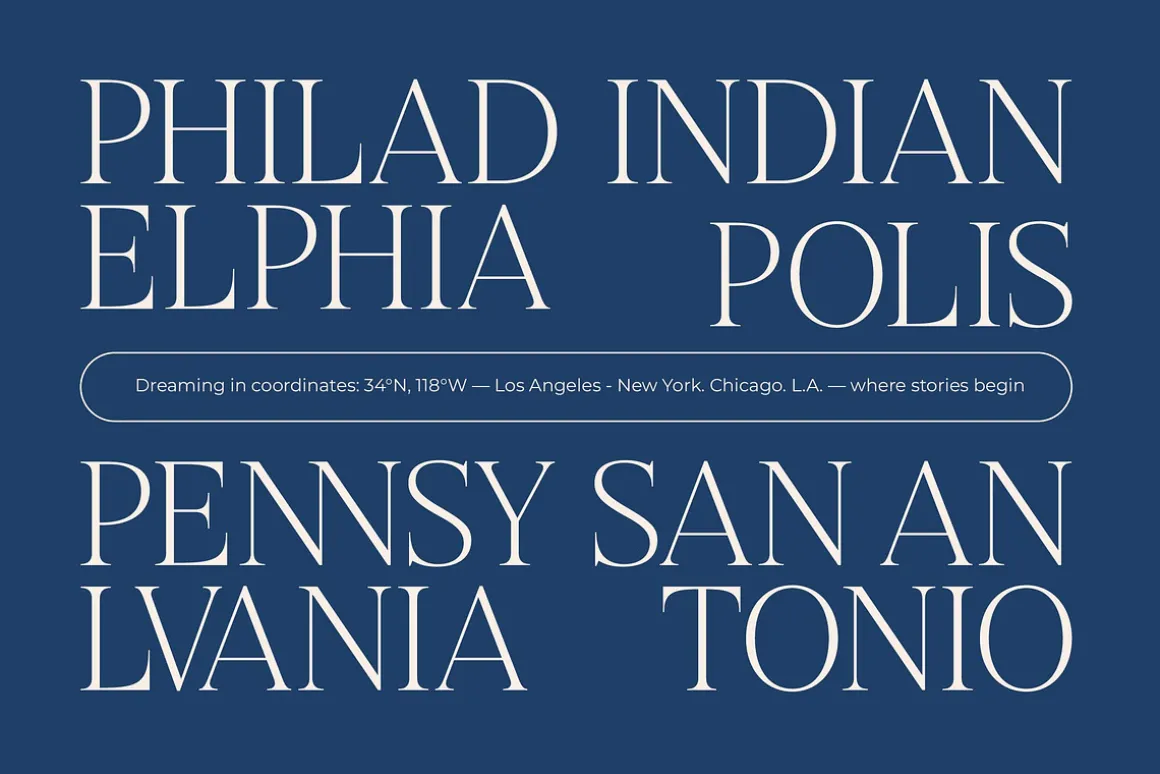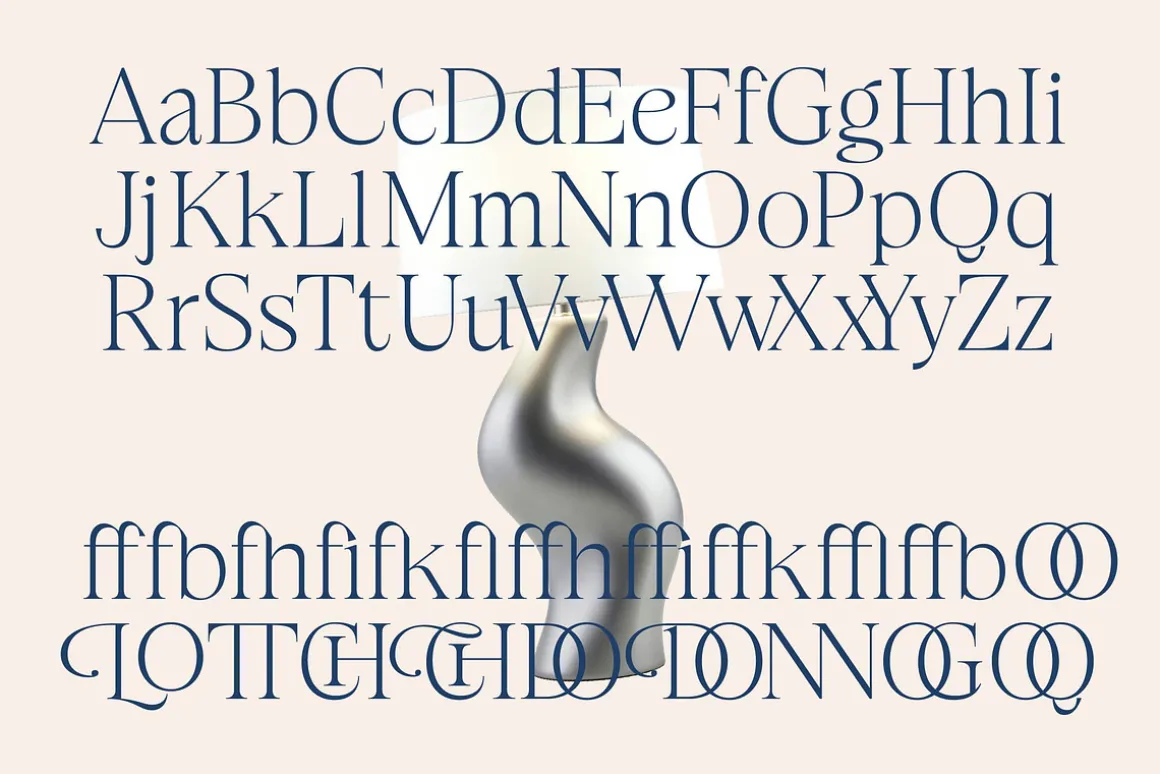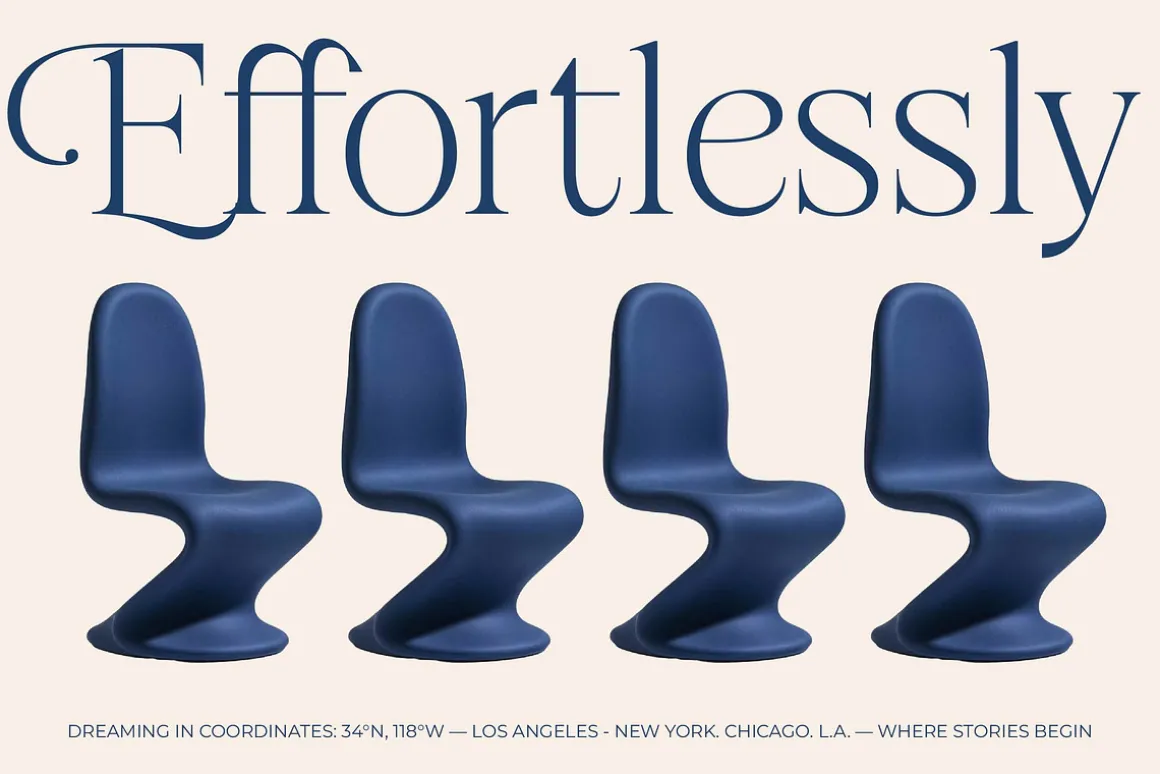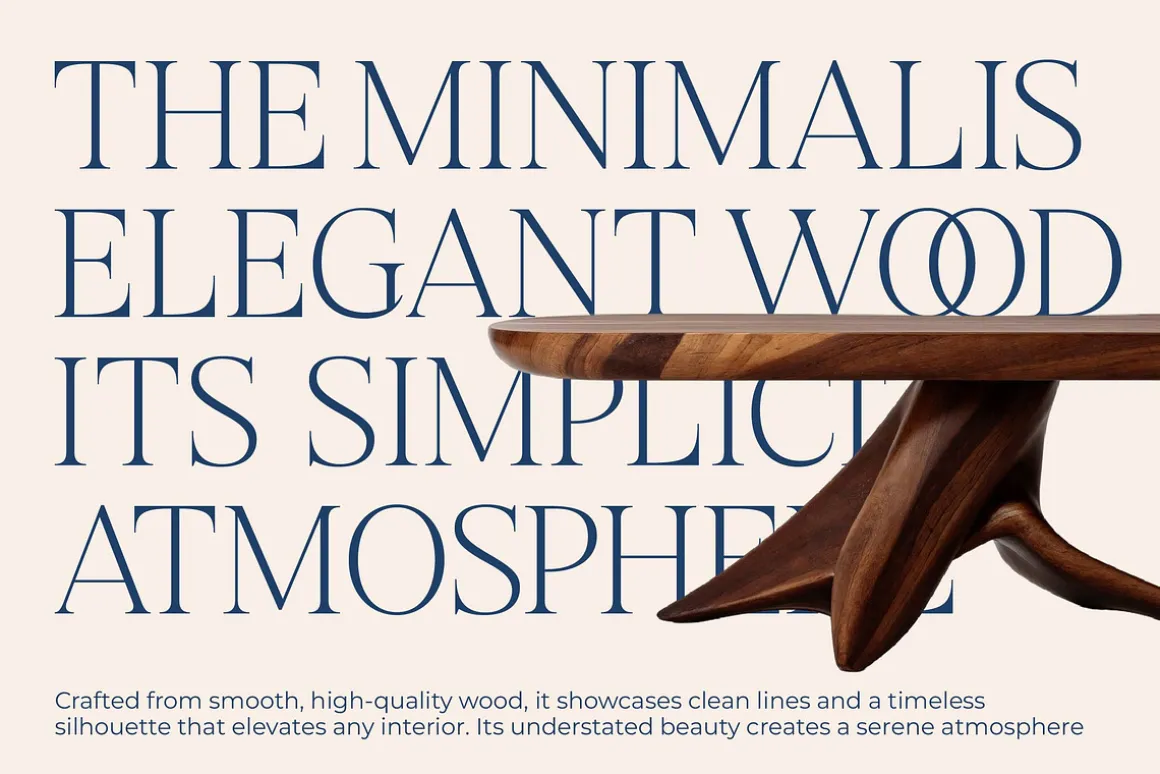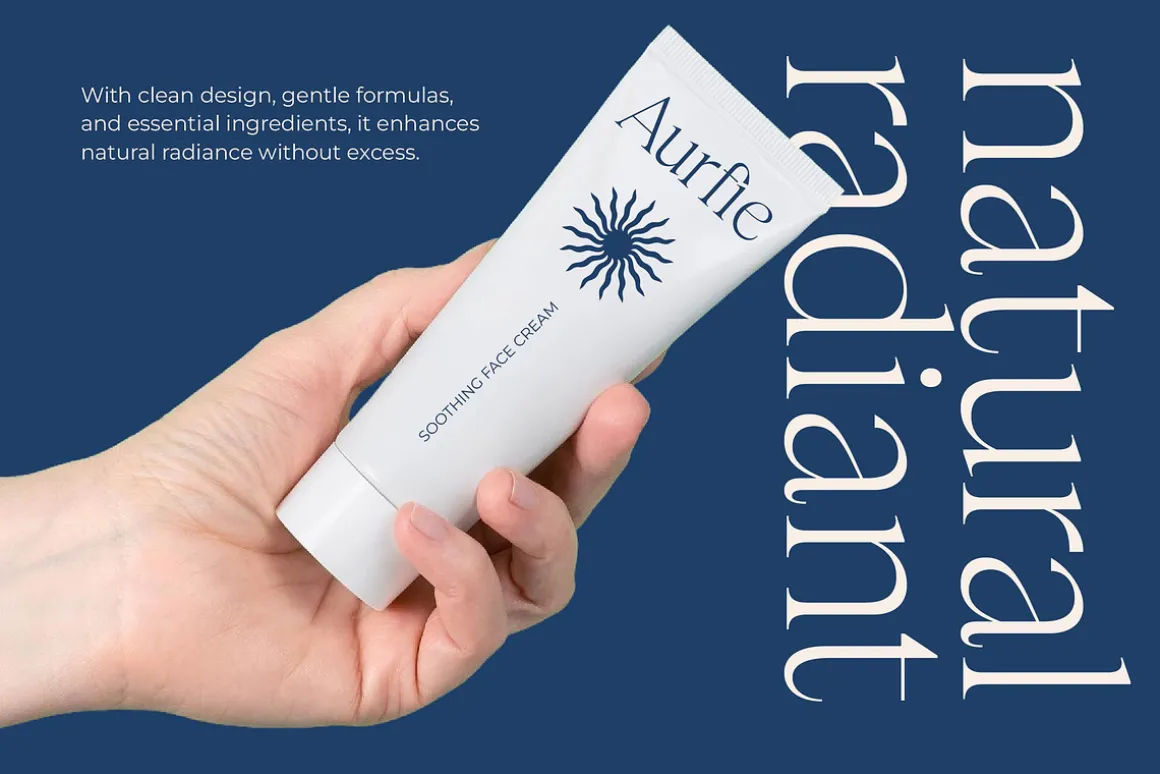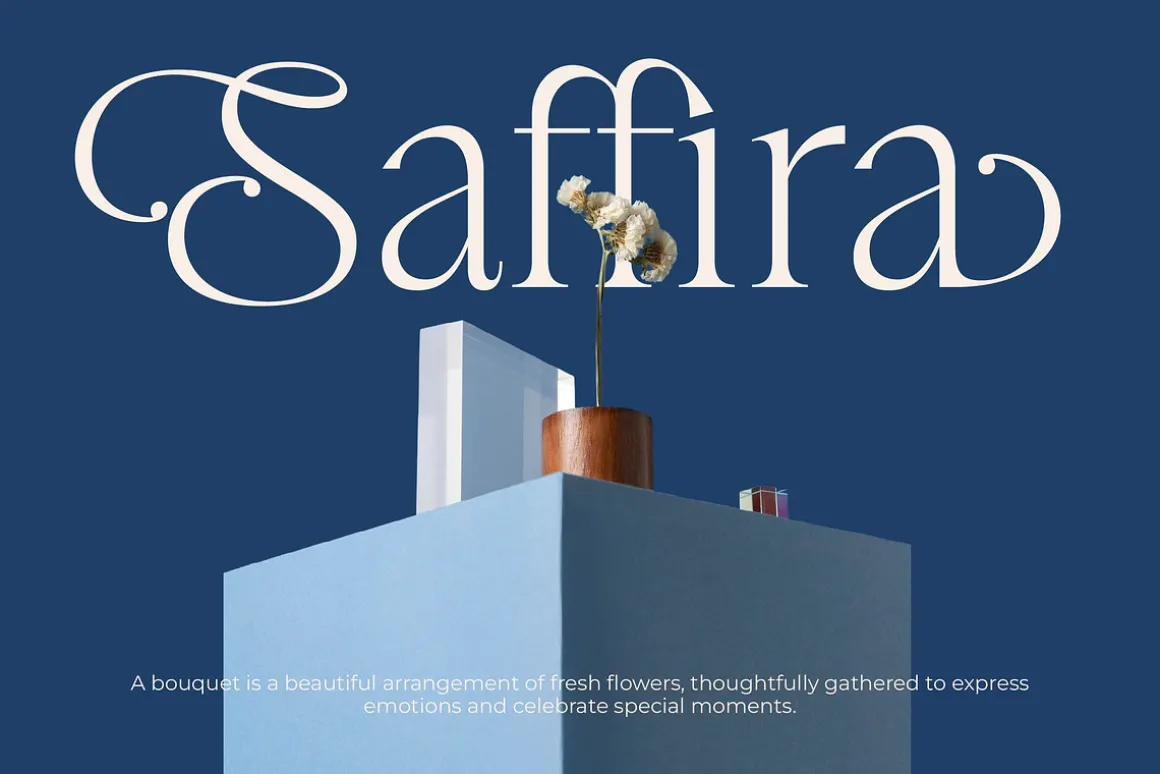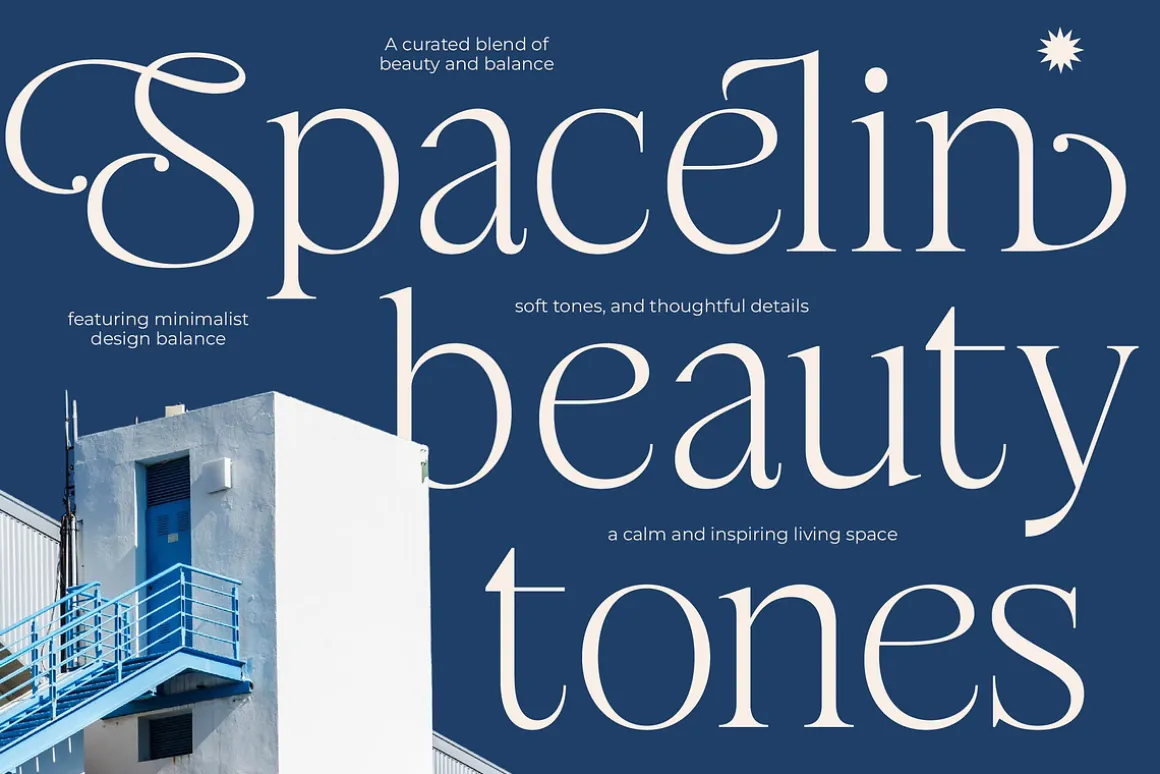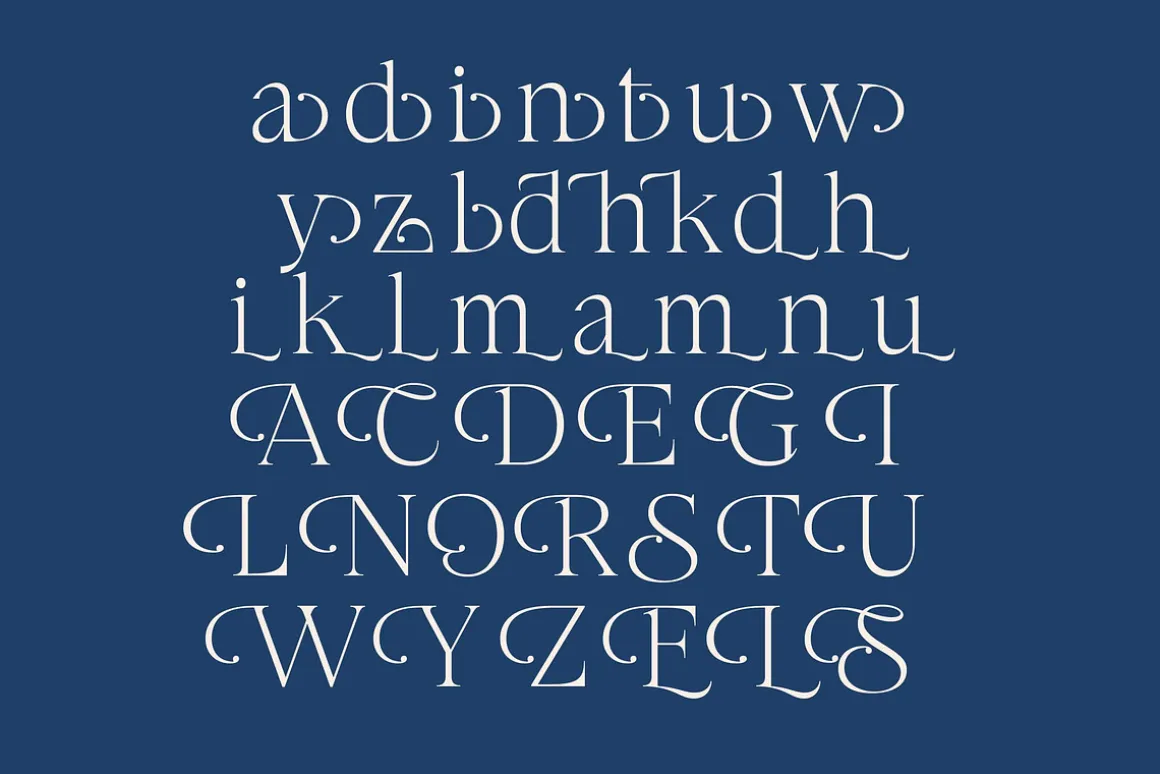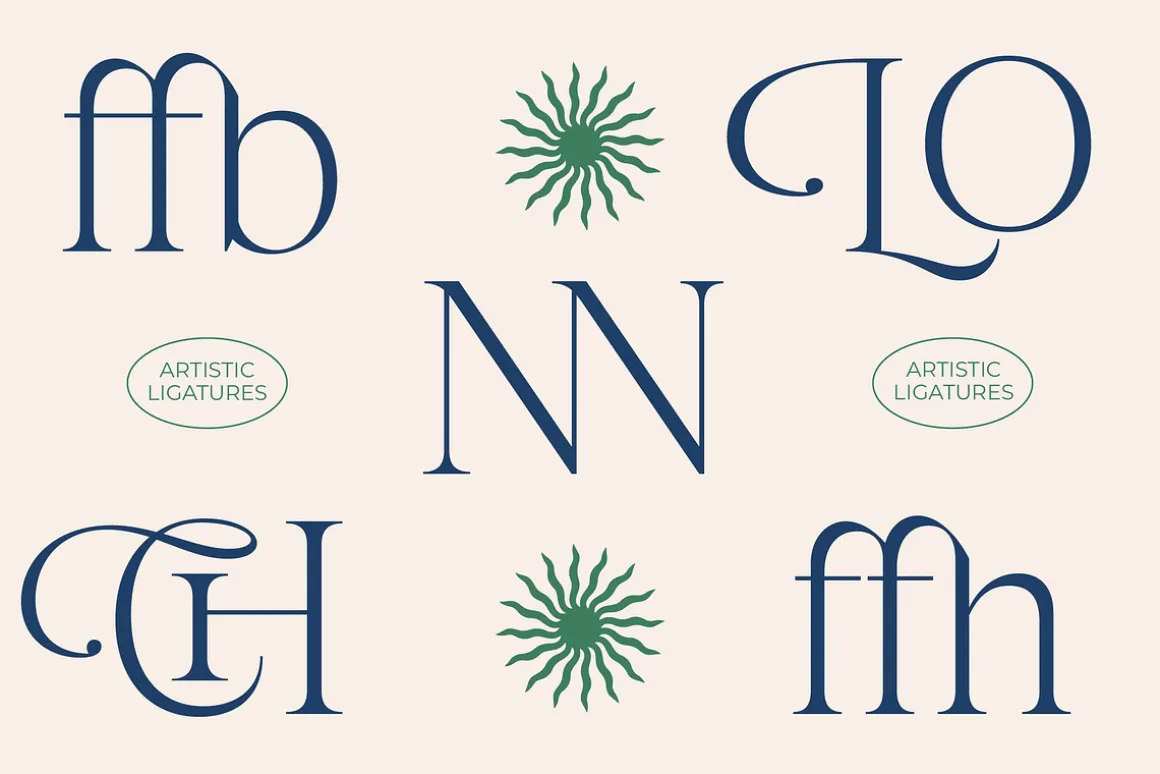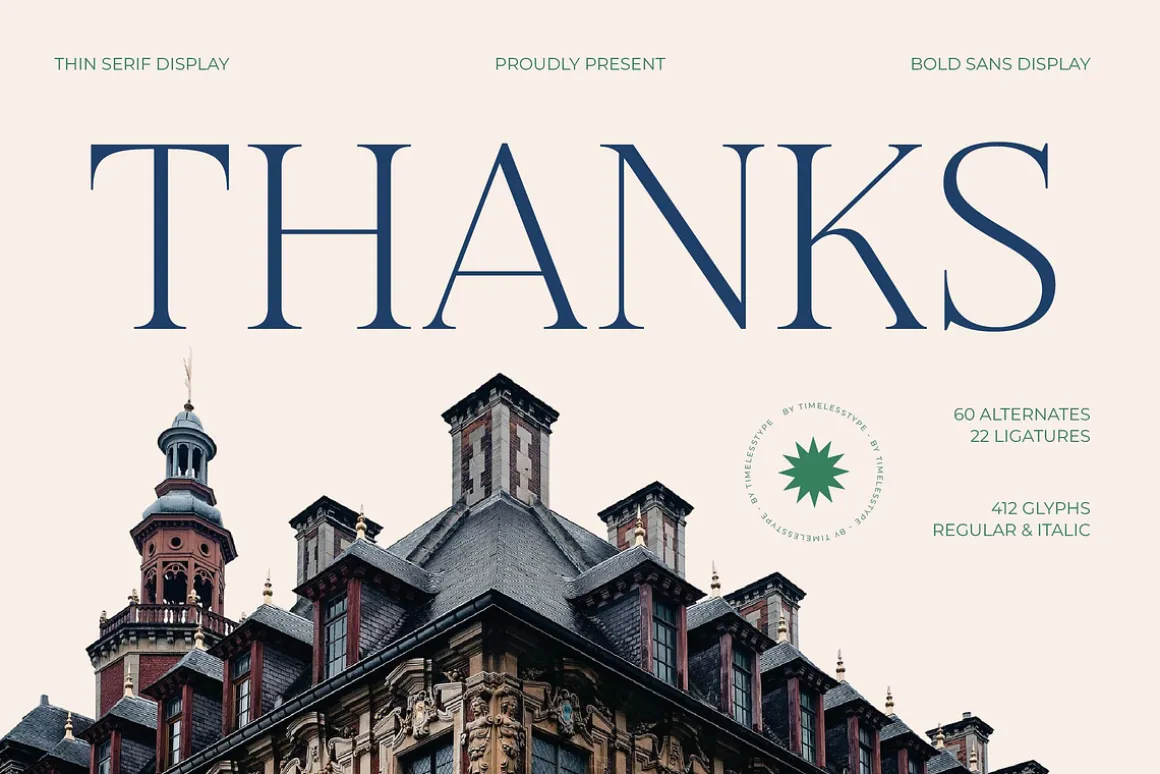
Elevate your creative vision with the ethereal grace of Stokeda Thin, a typeface designed to command attention through whispered elegance. This font is a masterpiece of delicate linework and sophisticated curves, perfect for designers seeking a balance between heritage and contemporary minimalism.
Inspired by the architectural grandeur of classic European estates and the timeless beauty of vintage editorial spreads, this typeface captures a sense of quiet luxury. It draws from the soul of traditional typography while stripping away the weight to reveal a skeleton of pure, refined form that feels both old-world and avant-garde.
Exuding an aura of high-end prestige, the personality of this font is defined by its modern serif display qualities and meticulous luxury typography details. Every curve is a deliberate choice intended for maximum branding impact, making it a quintessential editorial font for projects that require a sharp, high-contrast serif aesthetic.
Staying ahead of the modern serif trend, this collection answers the global call for more character-driven typography in a sea of generic designs. It is perfectly aligned with the current market demand for editorial display fonts that offer both versatility and a unique visual signature that stays memorable.
This versatile typeface is the ideal choice for high-end logo design and comprehensive branding identity systems that need to stand out in a crowded marketplace. Its romantic yet sharp profile makes it a favorite for wedding invitations, luxury packaging, haute couture fashion layouts, and sophisticated editorial spreads.
Beyond its stunning aesthetics, the font is packed with technical excellence including over 60 alternates and 22 unique ligatures to customize your creative look. The extensive character set features beautiful swashes and full multilingual support with international characters to ensure seamless global compatibility.
- Ligatures and Alternative Style Stylistic Set